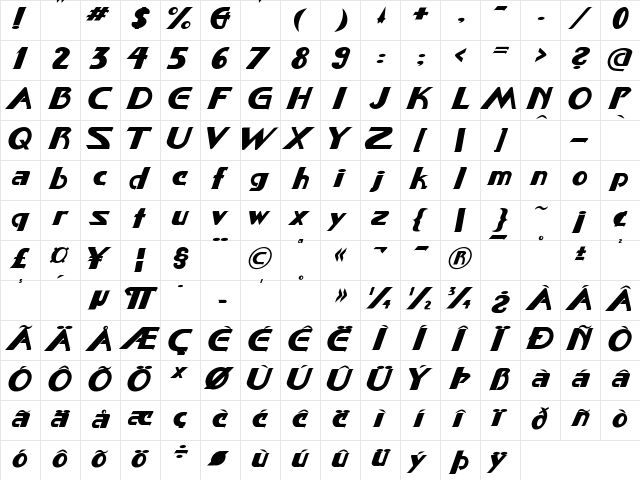
Star Cinema Bold Italic
Design Context for Star Cinema Typeface
Star Cinema takes a measured approach to typography — its balanced proportions and neutral character make it a reliable workhorse for both digital and print work. The dynamic lean of this cut emphasises speed and emphasis in any layout. The heavy weight commands attention and anchors typographic hierarchies.
Pro Tip: Use Star Cinema for emphasis, pull quotes, and subheadings where its slanted energy can add rhythm to the layout.